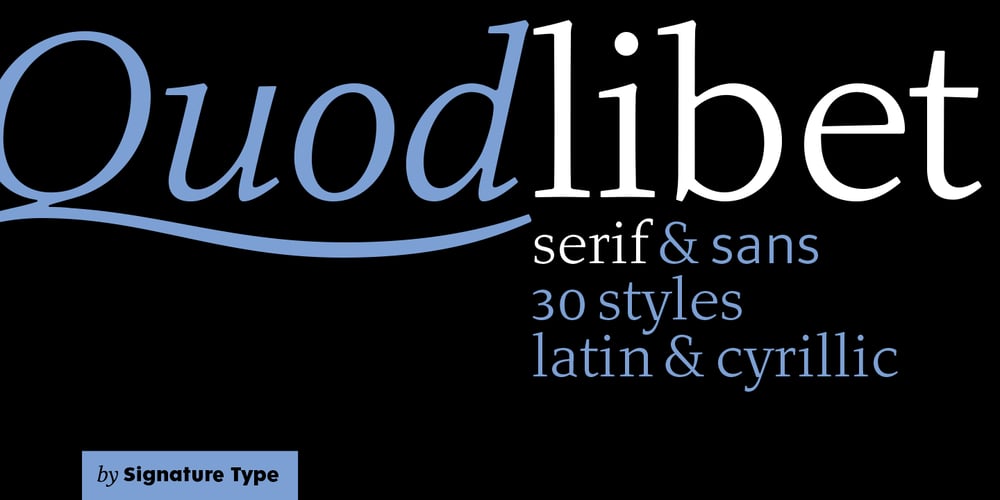
Quodlibet Serif
Quodlibet Serif font
Quodlibet Serif Font Family was designed by Rostislav Vaněk, Tomáš Nedoma and published by Signature Type Foundry. Quodlibet Serif contains 14 styles and family package options. The new typeface system is based on legibility of Renaissance and Baroque Antiqua. It maintains the quality of drawings without an overpowering historical legacy. The current concept makes the system a universal whole. Abrading of sharp edges which could catch one’s attention leads to a fine rounding of details. In this way, a sans drawing does not look hard and sterile unlike most of its contemporaries. Special attention was paid to every detail of each letter. The professional question of how to incorporate brightening wedges into the dark places of individual strokes’ onsets was resolved by rounded shapes that have their graphic response in the detail of the serifs. Particularly in larger sizes the typeface offers drawing sophistication and dimensional interconnection. Apart from Cyrillic alphabet, the alphabet design includes ­Vietnamese ­accents.